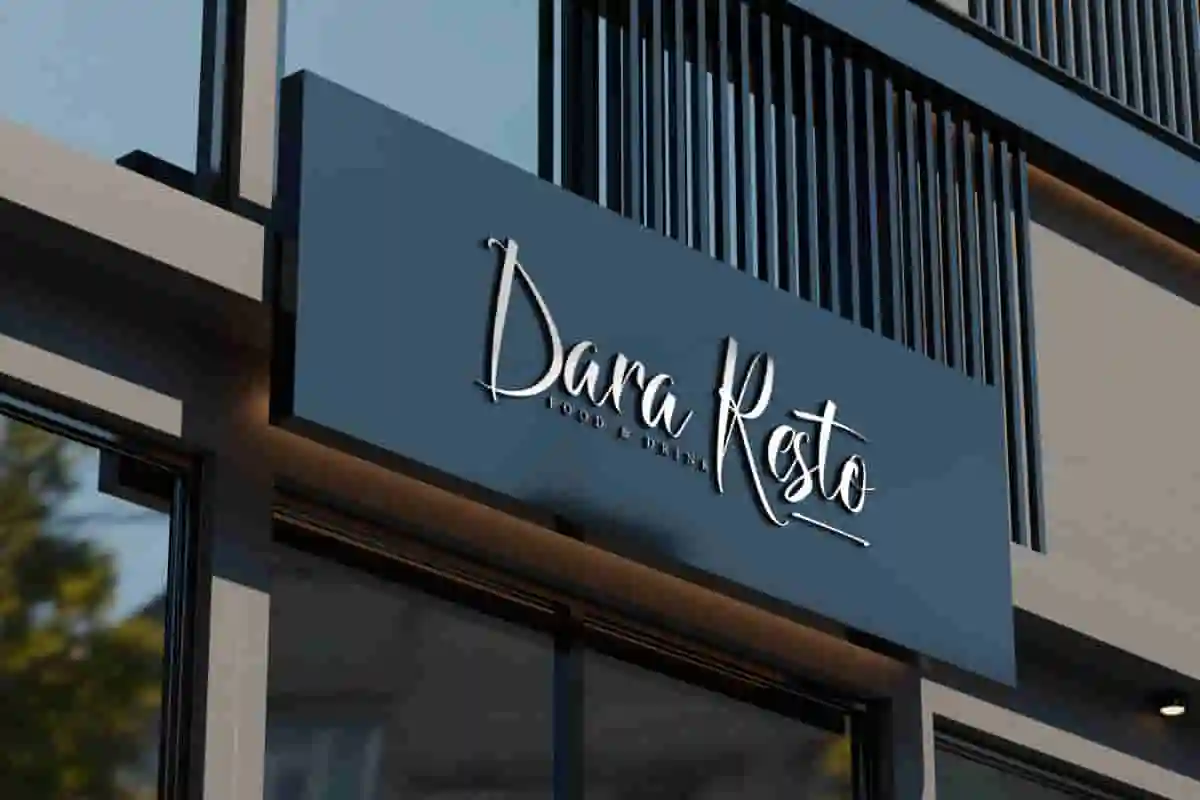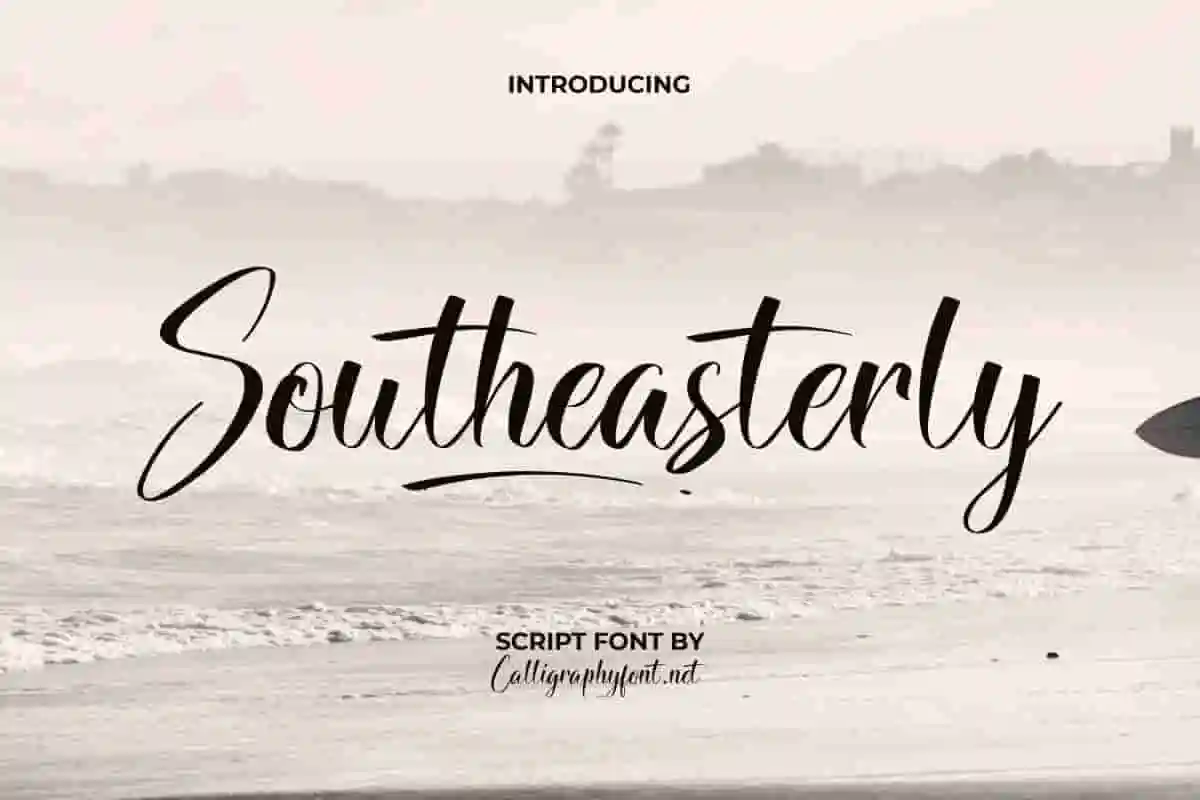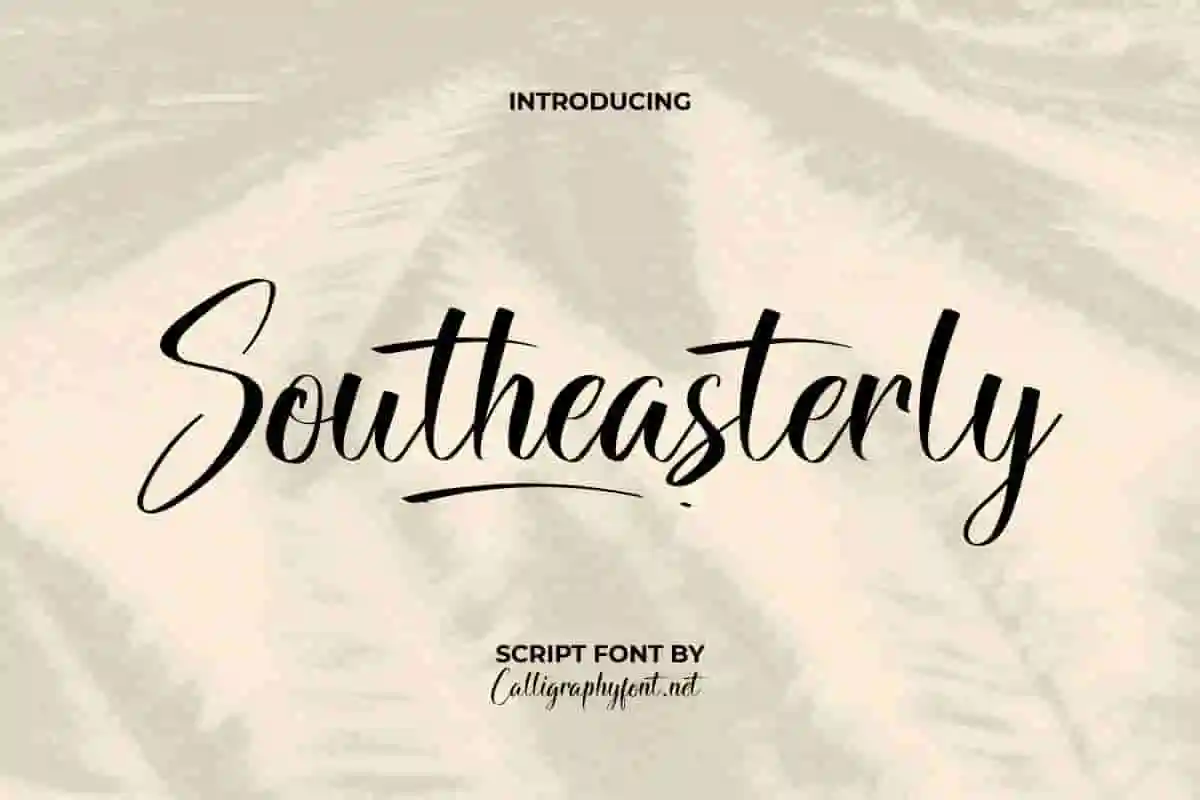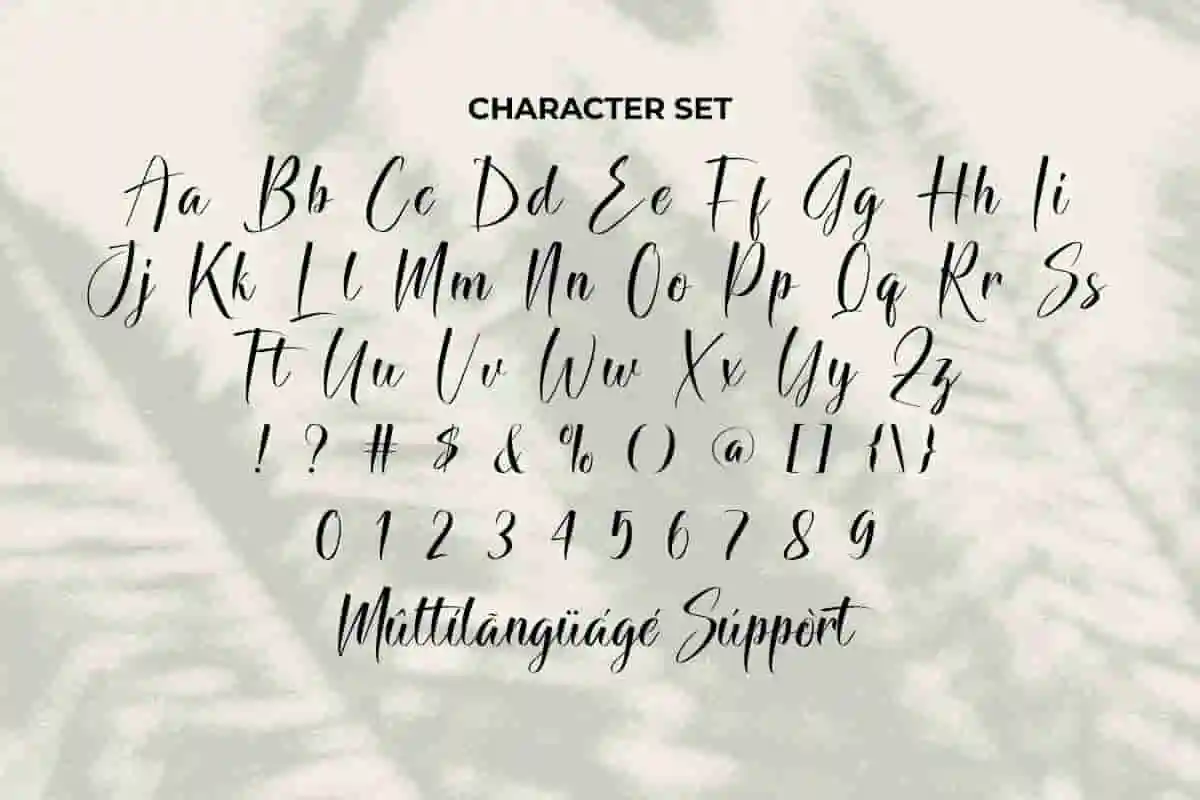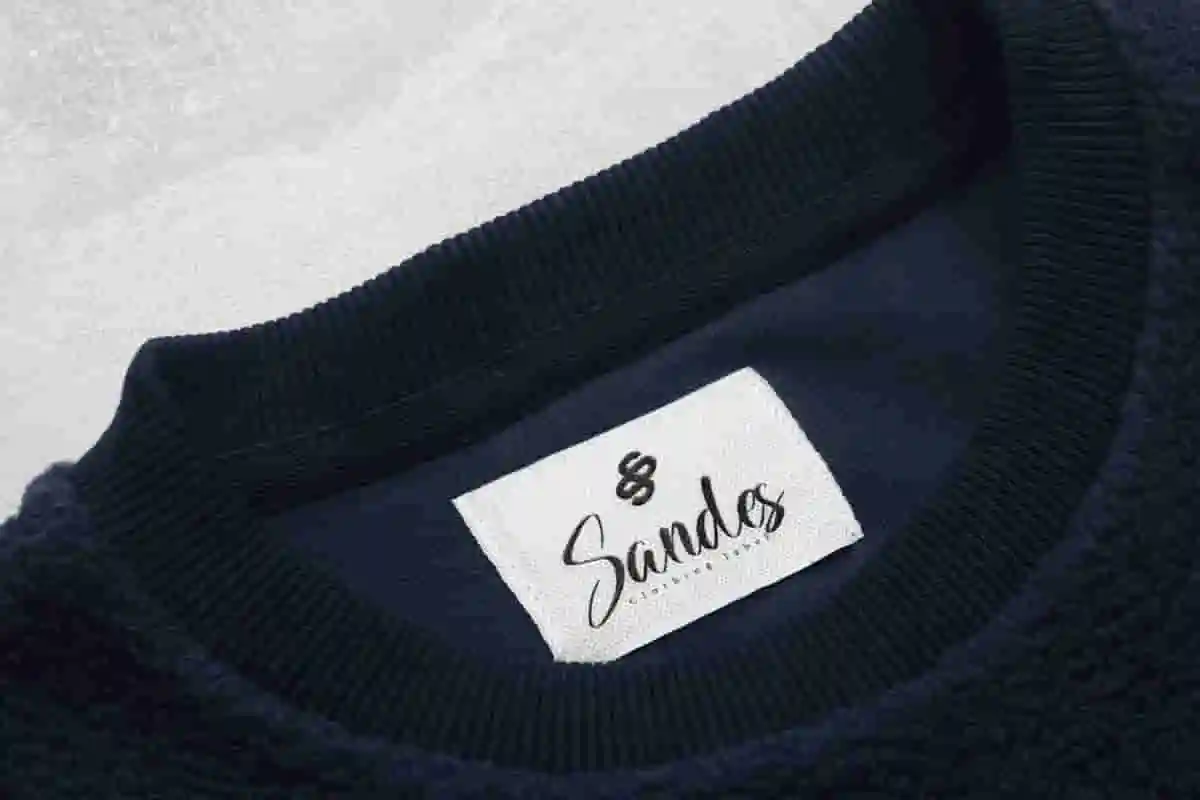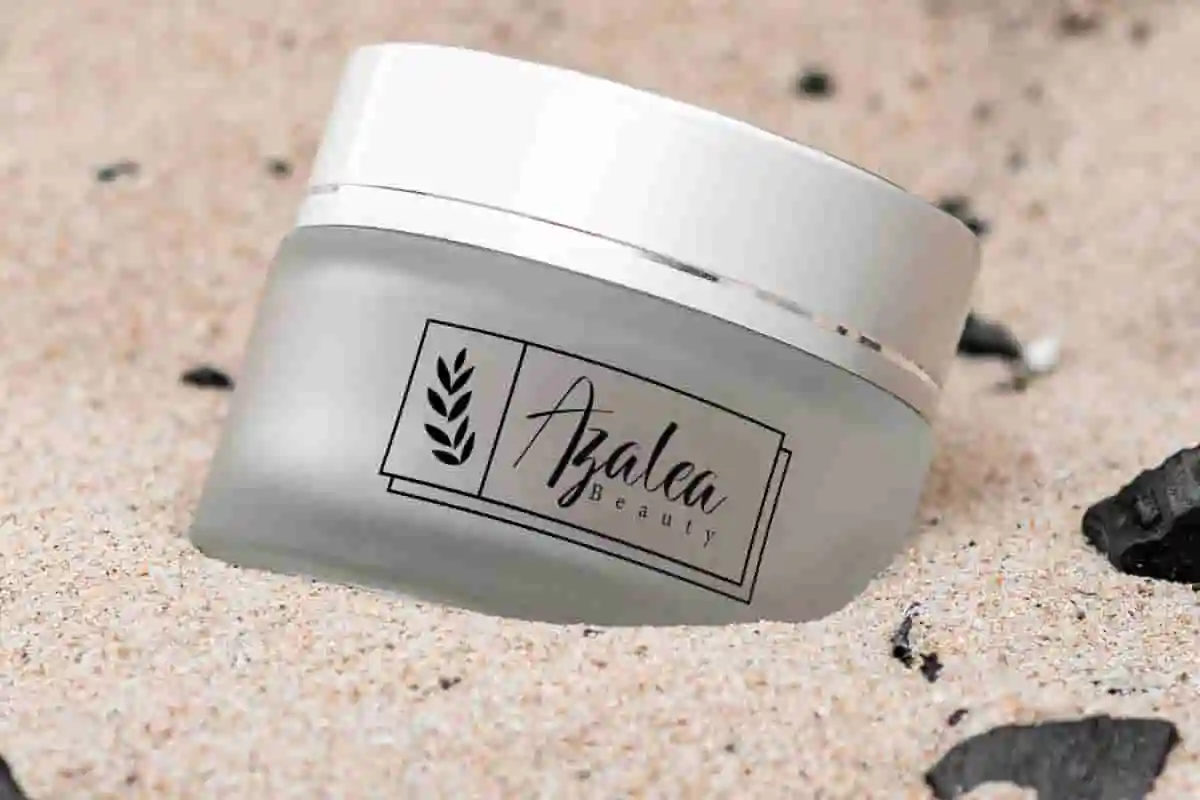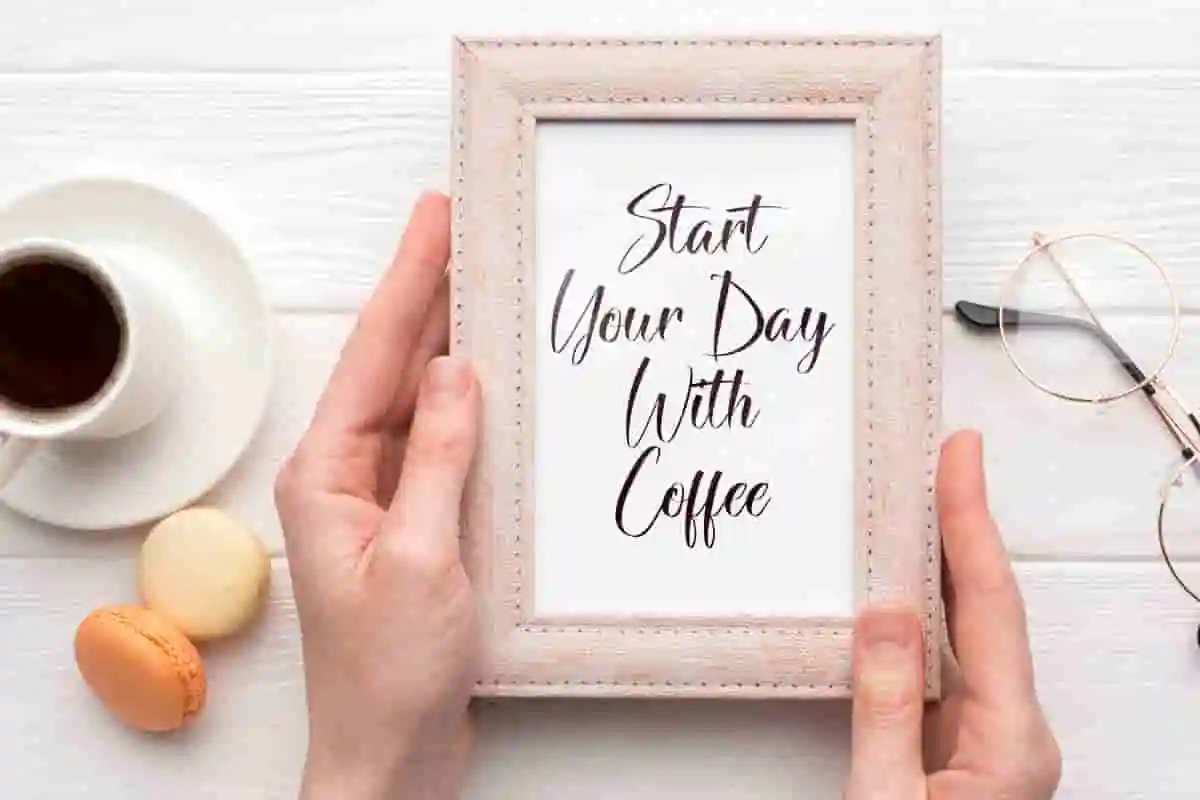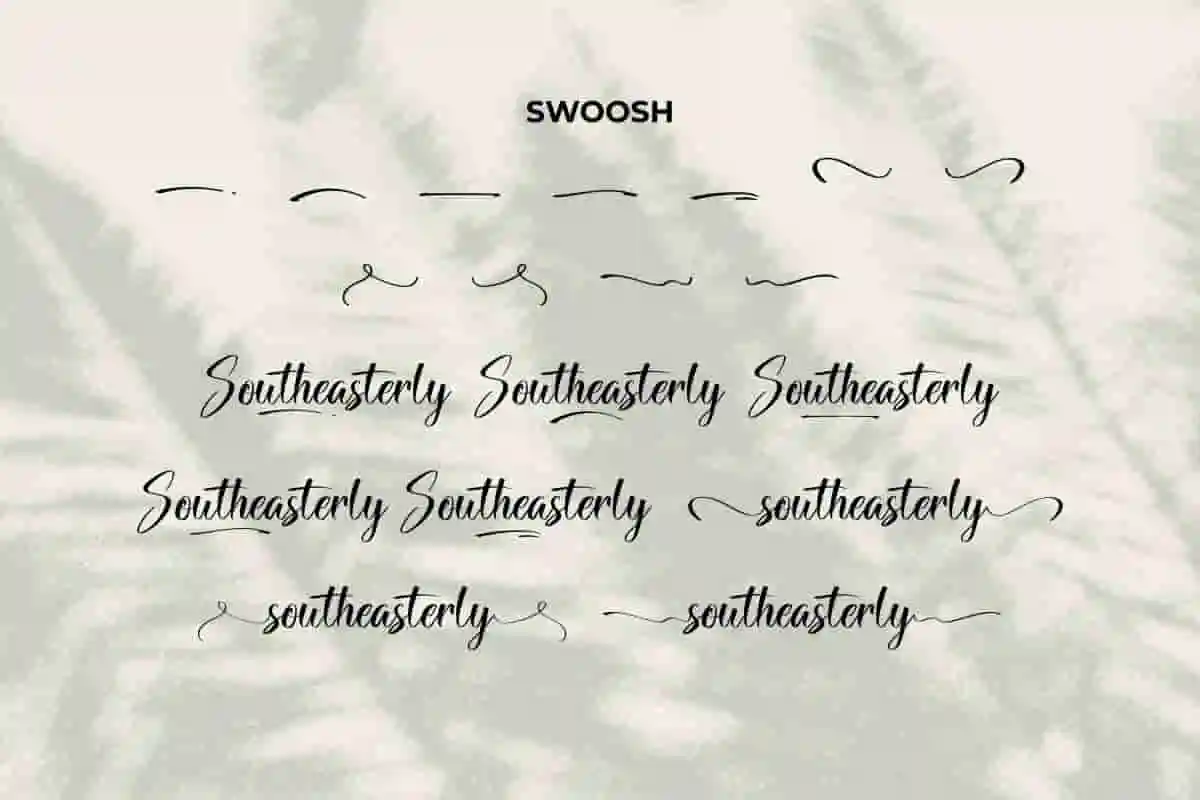
Southeasterly Calligraphy Font
Southeasterly Font is a beautiful calligraphy script font that will make it suitable for clothing, labels, nail salon, quotes, restaurant, signage, skin care packaging design, title, and anything that requires a flawless calligraphy look.
Southeasterly Font is an elegant calligraphy script with stylish look, created by Calligraphy Fonts. This font is carefully crafted to create a perfect form and reading that will be suitable for your creative projects, such as: brand logo, label, magazine catalog, product packaging design, quote, signage, stationery, title, website, etc.
Say hello to timeless beauty with Southeasterly Calligraphy Font — a flowing, hand-lettered script that brings grace, charm, and elegance to any project. Crafted with attention to every curve and stroke, this font is perfect for creatives who want to add a romantic and feminine touch to their work.
Looking for a font that brings elegance, romance, and artistry into your designs? Meet Southeasterly Calligraphy Font — a handcrafted script font that captures the beauty of flowing handwriting and classic sophistication. Designed with graceful curves and natural movement, Southeasterly is perfect for wedding invitations, feminine branding, product packaging, social media graphics, and more.
Add a romantic, handcrafted touch to your design projects with the stunning Southeasterly Calligraphy Font. This elegant script font was created for creatives, designers, and dreamers who value timeless beauty, graceful flow, and authentic handwriting style. Inspired by traditional calligraphy with a modern twist, Southeasterly is perfect for wedding stationery, brand identity, logos, social media graphics, and product packaging.
• Event posters and handmade crafts
• Wedding invitations and save-the-dates
Southeasterly Font will be great for any industry, including: architect, boutique, cosmetic, fashion brand, home decoration, publishing, real estate, restaurant, salon, spa, wedding organizer, writer, and everything that needs a touch of classy script.
Southeasterly Font comes with a full set of Uppercase and Lowercase Basic Characters, Number, a large range of Punctuation and Symbol, Swoosh, and also supports multilingual characters. Ready to use both on Windows machine or Mac with simple installations. It’s tested to work well in the Adobe Apps (Illustrator, Adobe InDesign, Adobe Photoshop) CorelDraw, and others. PUA Encode Characters means you can access all the glyphs and other additional characters easily – Fully accessible without additional design software.